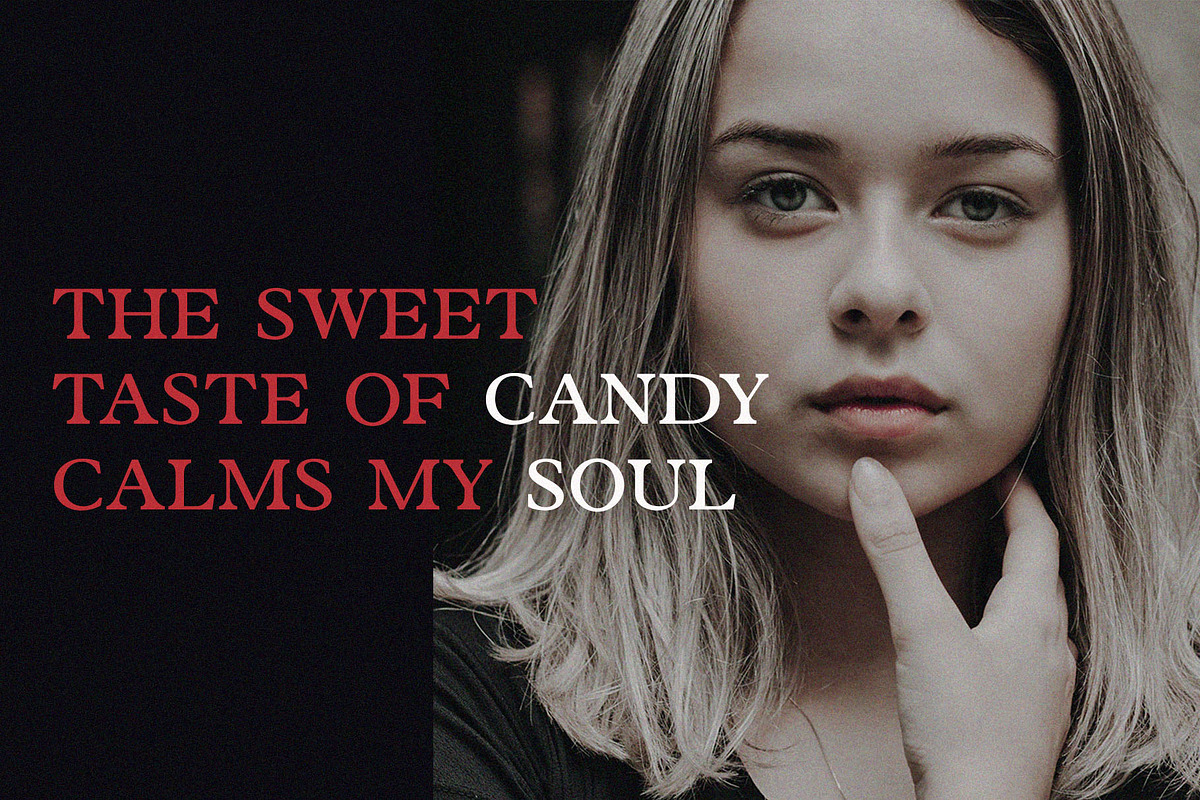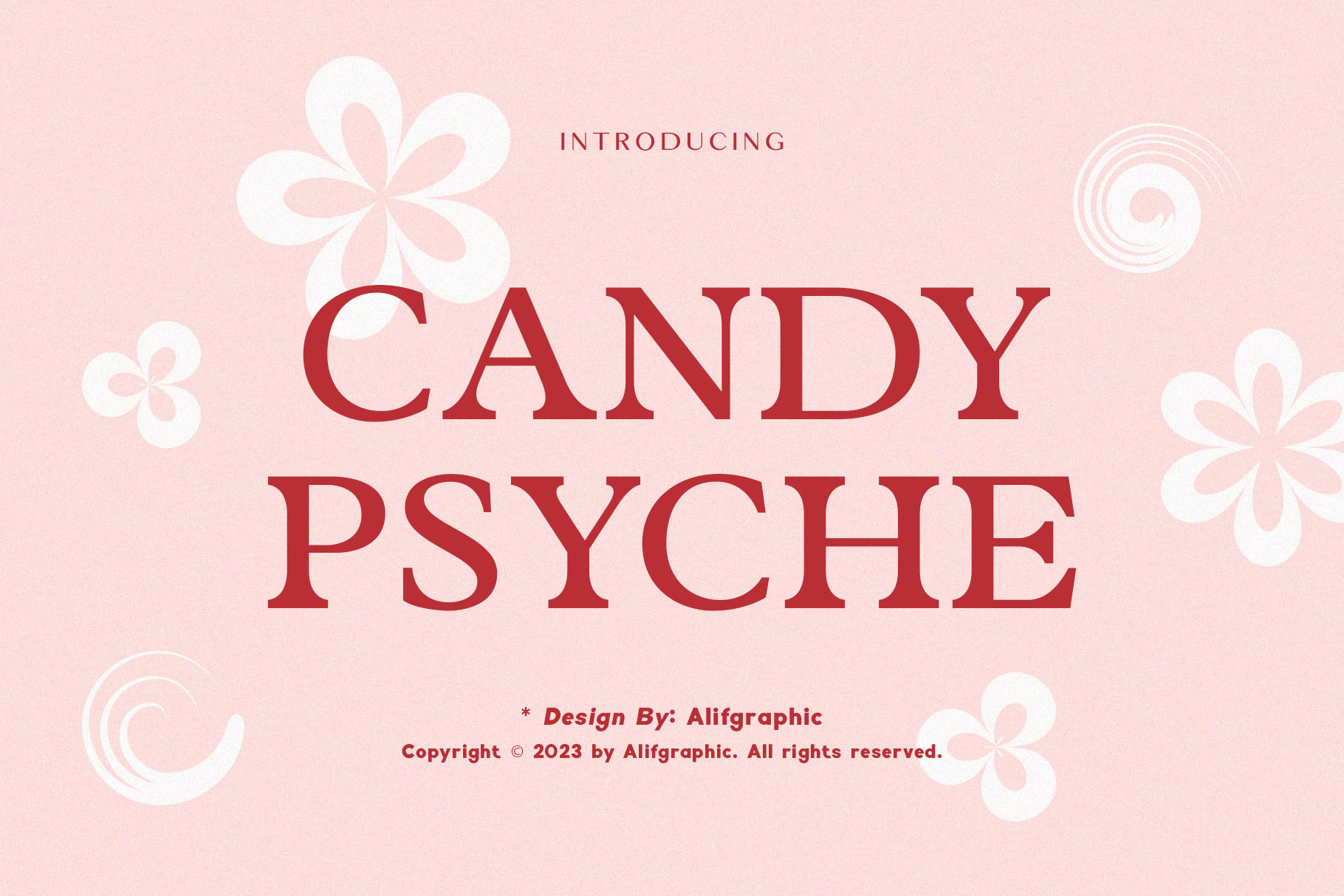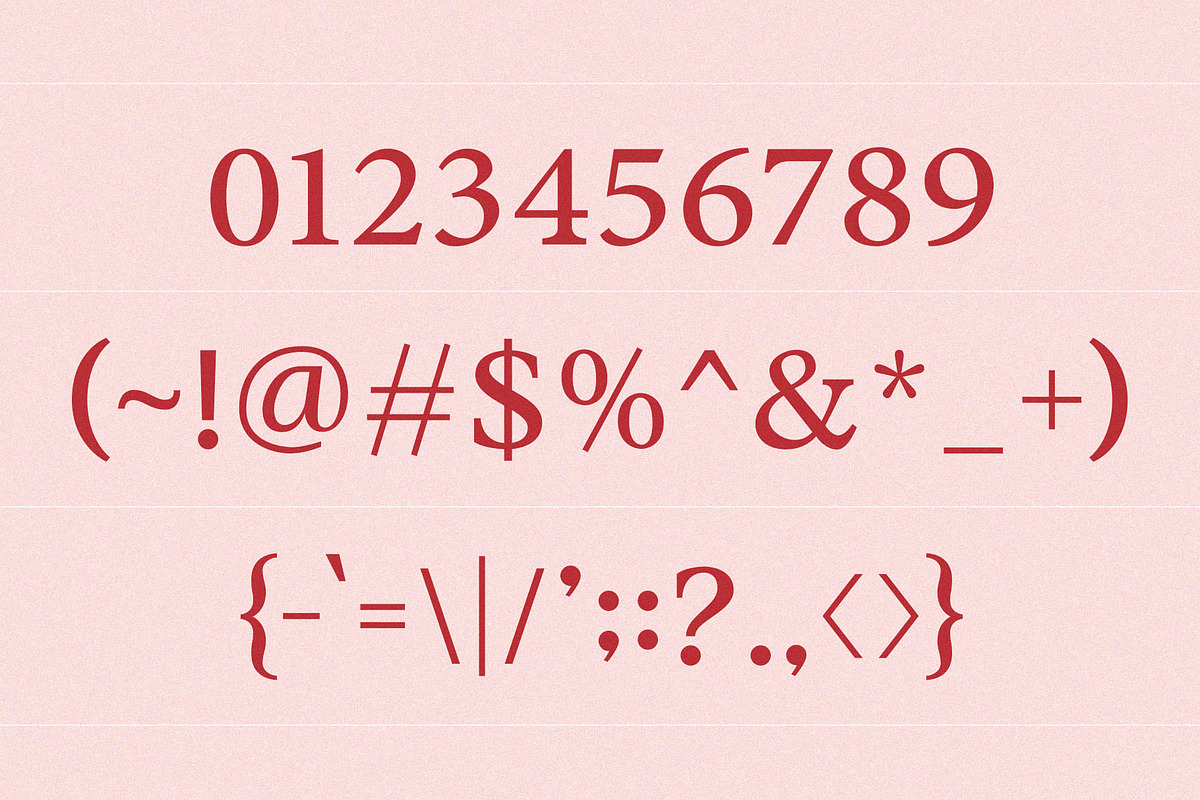
Candy Psyche Serif Font
Introducing 'Candy Psyche' Font:
Introducing Candy Psyche, a sophisticated and modern serif font that exudes class. Designed for versatility, this font brings a touch of elegance and style to various design projects, including websites, logos, magazines, and social media. The harmonious pairing of these fonts makes them ready and perfect for seamless use in your next design endeavor.
For those in search of a blend of elegance, style, class, chic, and modernity in their designs, Candy Psyche is tailored just for you. Elevate your projects with the timeless charm and contemporary appeal of this font, creating a sophisticated and cohesive visual experience.
Ideal for:
- Classy Designs
- Beauty and Fashion
- Elegant Creations
- Versatile Applications
- Social Media Designs
- Magazines
- Ready for Creative Expression
- Immaculately Crafted Letters